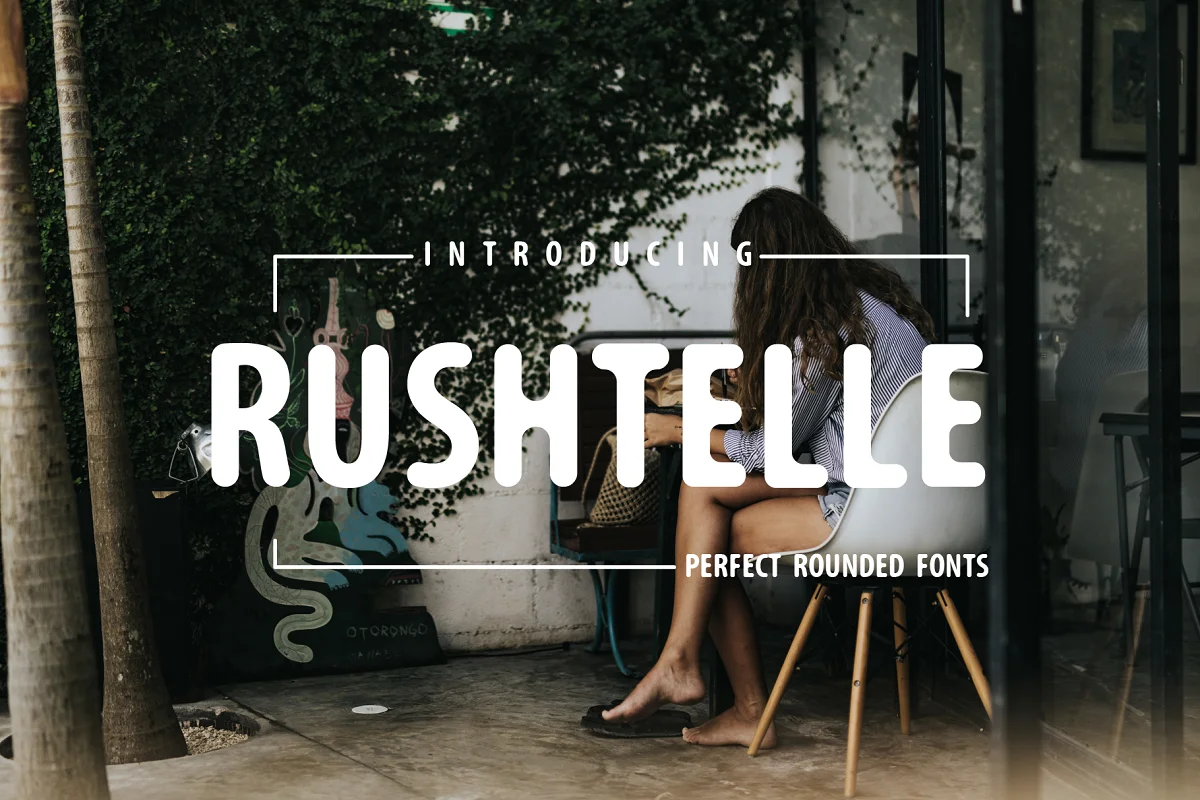
About the Rushtelle Font
Rushtelle Perfect Rounded Fonts. Create bold, perfect headlines and elegant designs. perfect look for logos, business cards, wedding invitations, quotes, advertisements, video titles, and more. Create something perfect with Rushtelle.